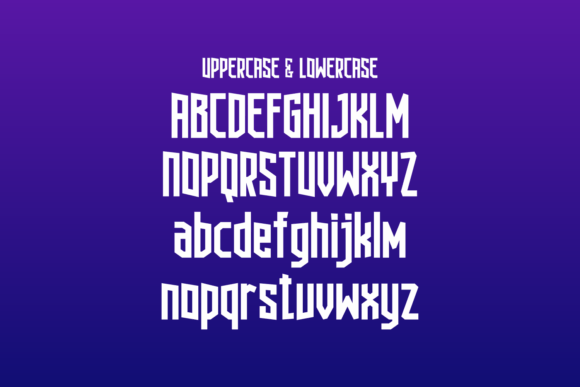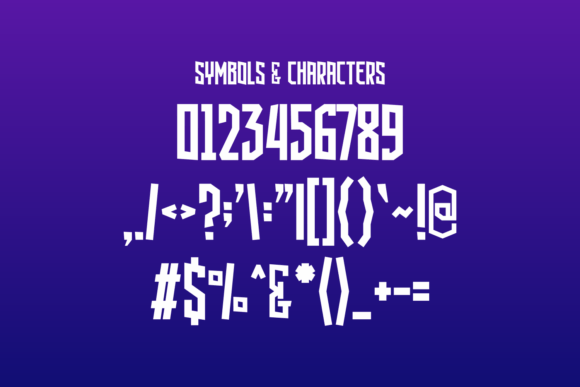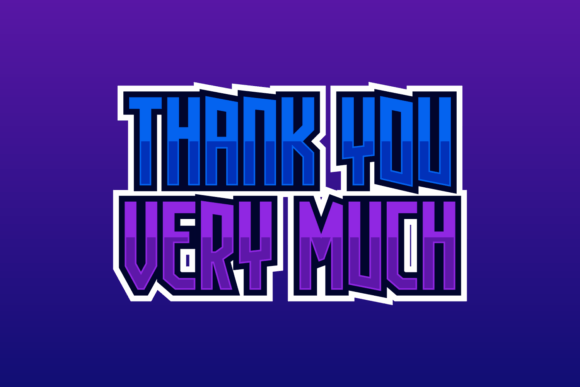
Beros Font: A Stunning Display Font for Creative Projects
Are you a designer or crafter looking for a beautiful and versatile font to elevate your creative projects? Look no further than Beros Font! This stunning display font is perfectly suited for a wide range of applications, from print to screen, and is ideal for adding a touch of elegance and sophistication to your designs.
What is Beros Font?
Beros Font is a beautiful display font that is designed to make a statement. Its unique and elegant design makes it perfect for a variety of creative projects, including branding, name cards, posters, logos, magazines, covers, banners, t-shirts, headers, and even large-scale artwork. Whether you’re a professional designer or a crafty DIY enthusiast, Beros Font is a great choice for anyone looking to add a touch of style and sophistication to their work.
Key Features of Beros Font
So what makes Beros Font so special? Here are just a few of its key features:
- Beautiful Design: Beros Font has a unique and elegant design that is sure to turn heads. Its clean lines, subtle curves, and perfect proportions make it a joy to use in a wide range of creative projects.
- Versatile: Beros Font is a highly versatile font that can be used in a wide range of applications, from print to screen. Whether you’re designing a logo, creating a poster, or crafting a bespoke t-shirt, Beros Font is the perfect choice.
- Scalable: Beros Font is designed to be scalable, meaning it looks great at any size. Whether you’re creating a tiny name card or a massive billboard, Beros Font will always look crisp and clear.
Uses for Beros Font
So what can you use Beros Font for? The possibilities are endless! Here are just a few ideas to get you started:
- Branding: Use Beros Font to create a stunning logo or brand identity that will help your business stand out from the crowd.
- Print Design: Beros Font is perfect for a wide range of print design projects, including posters, flyers, brochures, and more.
- Digital Design: Beros Font is also great for digital design projects, including social media graphics, website headers, and more.
- Crafting: Beros Font is a great choice for crafty DIY enthusiasts, and can be used to create beautiful handmade cards, gift tags, and more.
Tips for Using Beros Font
Here are a few tips for getting the most out of Beros Font:
- Experiment with Different Sizes: Beros Font looks great at any size, so don’t be afraid to experiment with different sizes and scales.
- Pair with Other Fonts: Beros Font pairs well with a wide range of other fonts, so feel free to get creative and try out different combinations.
- Use in Combination with Images: Beros Font looks great in combination with images, so consider using it to add text to your favorite photos or illustrations.
In conclusion, Beros Font is a stunning display font that is perfect for a wide range of creative projects. Its beautiful design, versatility, and ease of use make it a great choice for designers and crafters alike. Whether you’re looking to create a stunning logo, a beautiful poster, or a bespoke t-shirt, Beros Font is the perfect choice. So why wait? Download Beros Font today and start creating!